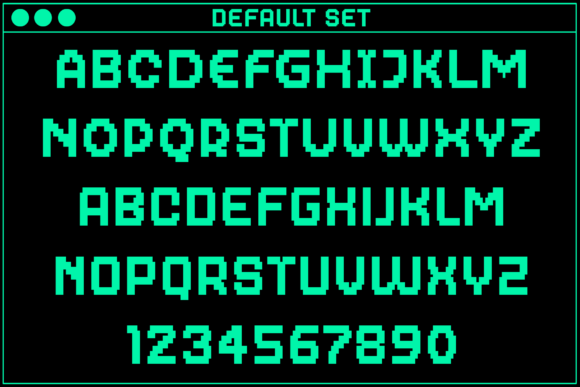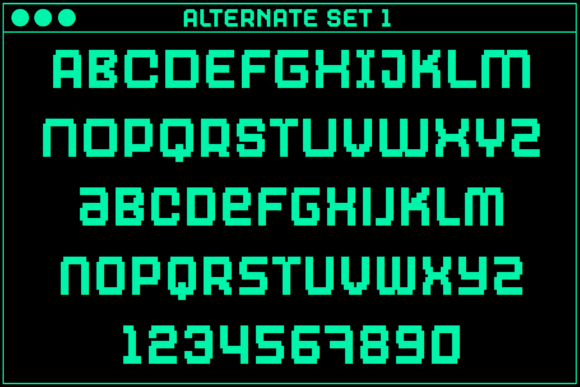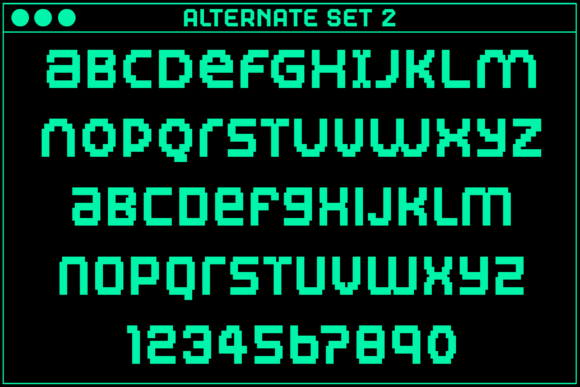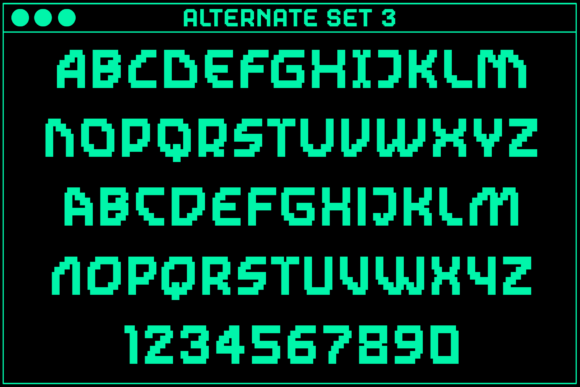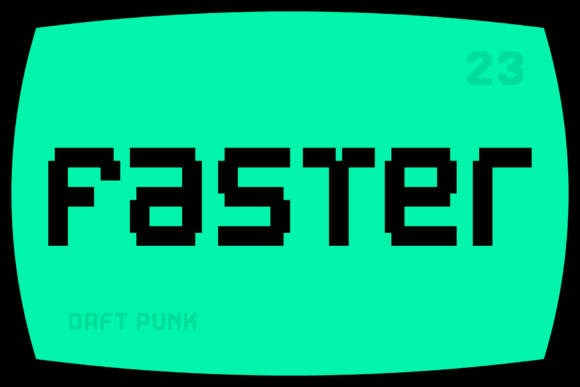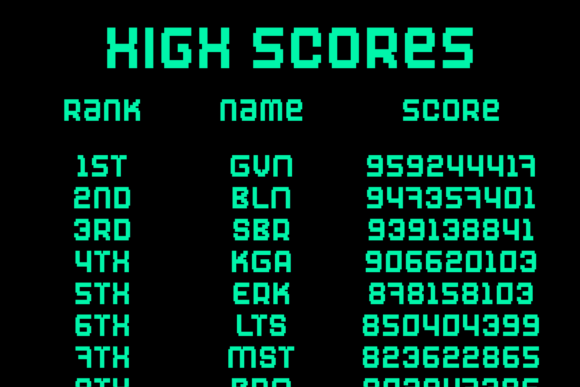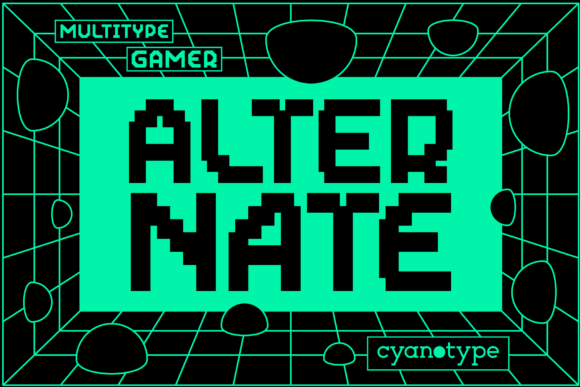
Discover the Power of Alternate Font: Elevate Your Designs with a Cool, Modern Twist
In the world of design, typography plays a crucial role in conveying messages, expressing creativity, and setting the tone for a brand or project. With the vast array of fonts available, it can be overwhelming to choose the perfect one that stands out from the crowd. However, if you’re looking for a font that exudes a cool, modern, and techno vibe, look no further than the Alternate Font. This stunning display font is designed to add a unique touch to your web designs, business cards, and various other creative projects.
What Makes Alternate Font So Special?
Alternate Font is a carefully crafted typeface that boasts a distinctive and futuristic aesthetic. Its sleek lines, geometric shapes, and precision-cut edges give it a modern and techno look that’s sure to captivate your audience. Whether you’re a designer, craftsperson, or simply a DIY enthusiast, this font is an excellent choice for anyone seeking to add a dash of sophistication and style to their work.
Key Features of Alternate Font
• Cool and Modern Design: Alternate Font features a unique and trendy design that’s perfect for creating eye-catching visual content.
• Techno-Inspired Aesthetic: The font’s geometric shapes and clean lines give it a techno look that’s ideal for projects that require a futuristic feel.
• High Versatility: Alternate Font is suitable for a wide range of applications, from web designs and business cards to posters, flyers, and more.
• Easy to Read: Despite its modern and stylized design, Alternate Font remains highly legible, making it perfect for use in both headings and body text.
How to Use Alternate Font in Your Designs
One of the best things about Alternate Font is its versatility. Here are some ideas on how to incorporate this amazing font into your designs:
• Web Designs: Use Alternate Font as a headline or title font to add a touch of modernity and sophistication to your website.
• Business Cards: Stand out from the crowd with a business card that features Alternate Font, perfect for entrepreneurs, freelancers, and small business owners.
• Social Media Graphics: Create engaging social media graphics, such as Facebook posts, Instagram stories, and Twitter headers, using Alternate Font.
• Print Materials: Use Alternate Font in brochures, flyers, posters, and other print materials to add a modern and techno twist.
Tips for Getting the Most Out of Alternate Font
To maximize the impact of Alternate Font, consider the following tips:
• Experiment with Colors: Play around with different colors to find the perfect combination that complements your design and brand.
• Mix and Match Fonts: Pair Alternate Font with other fonts to create a unique and visually appealing typography.
• Adjust Font Sizes: Experiment with different font sizes to create visual hierarchy and emphasize key messages.
Alternate Font is an exceptional display font that offers a cool, modern, and techno look that’s perfect for designers, craftspersons, and DIY enthusiasts. Its versatility, legibility, and unique aesthetic make it an excellent choice for a wide range of applications. By incorporating Alternate Font into your designs, you’ll be able to add a touch of sophistication and style that sets you apart from the crowd. So why wait? Download Alternate Font today and take your designs to the next level!